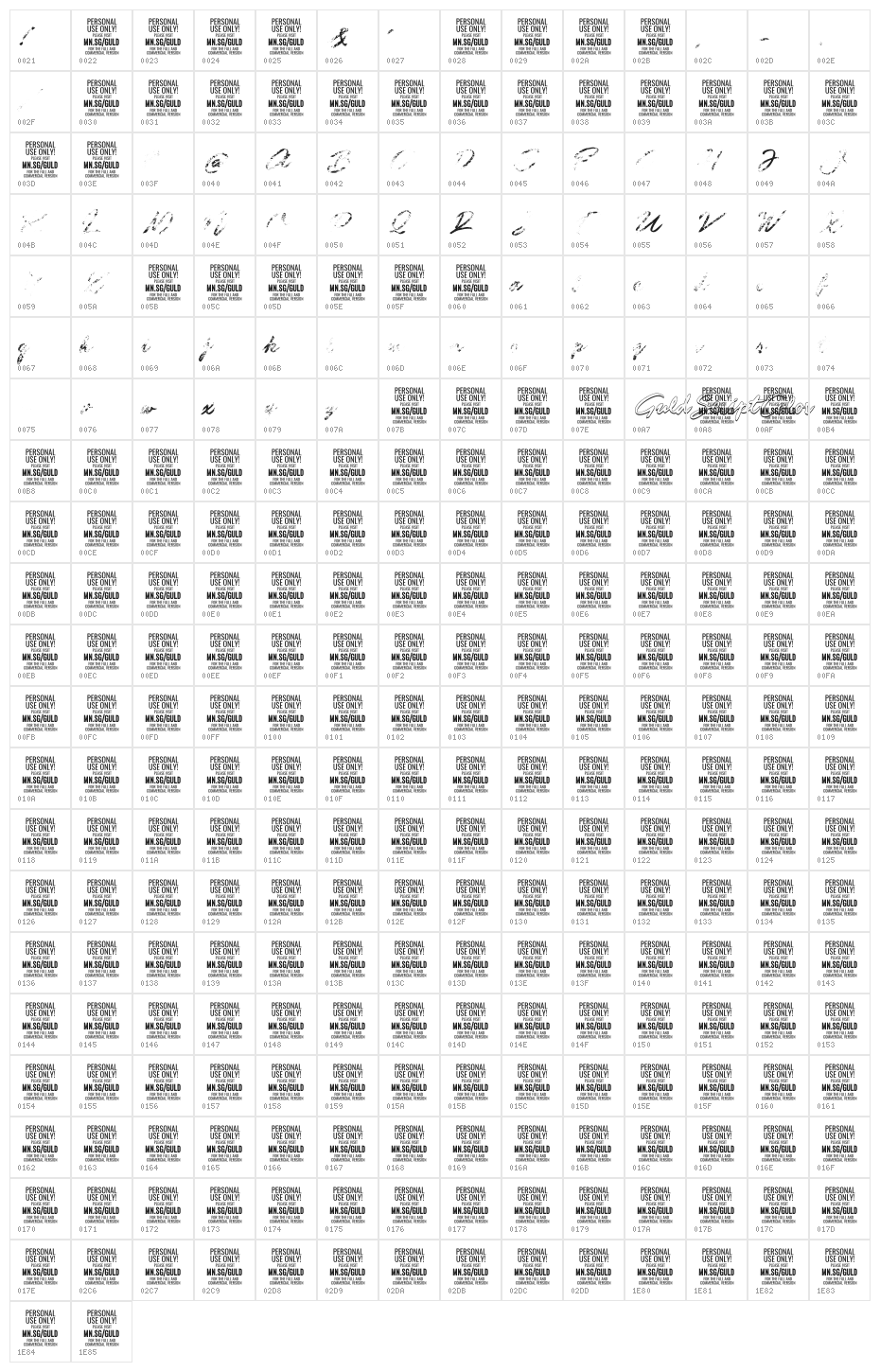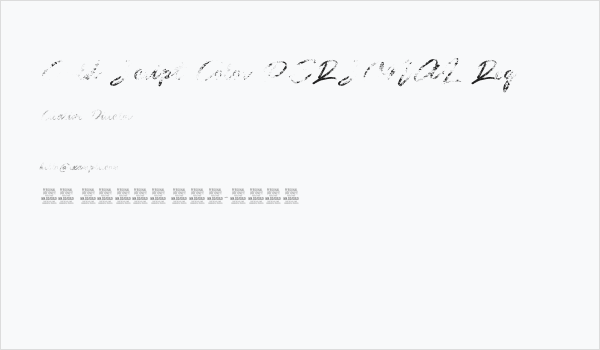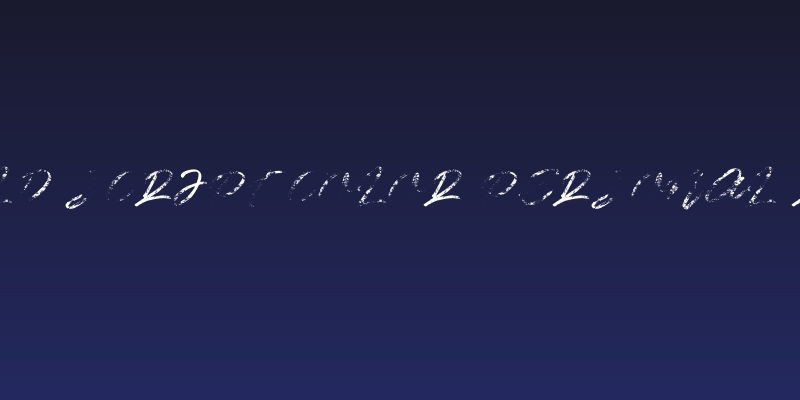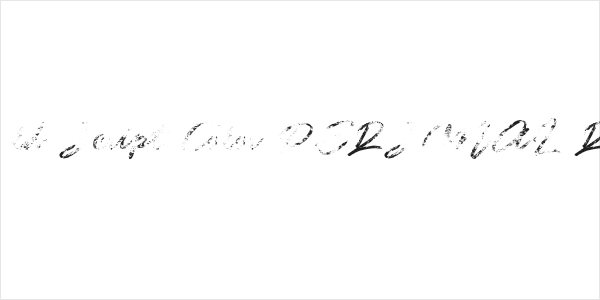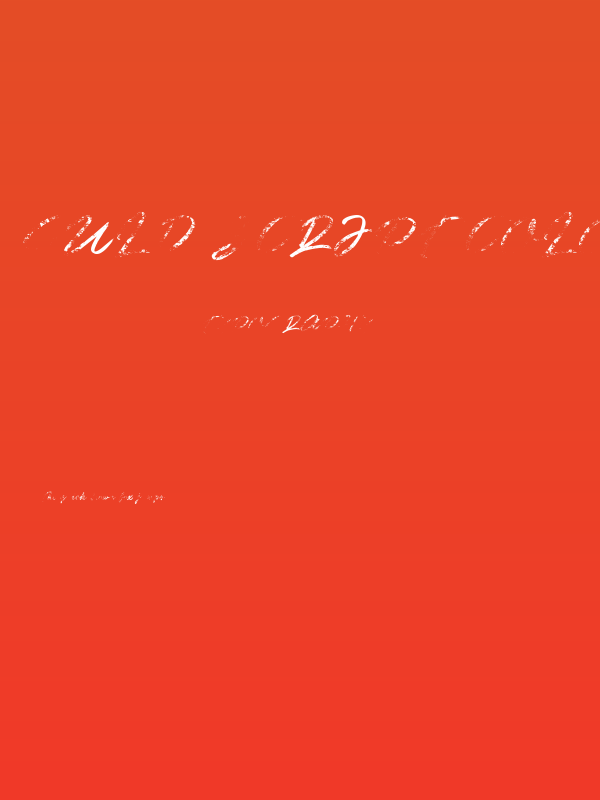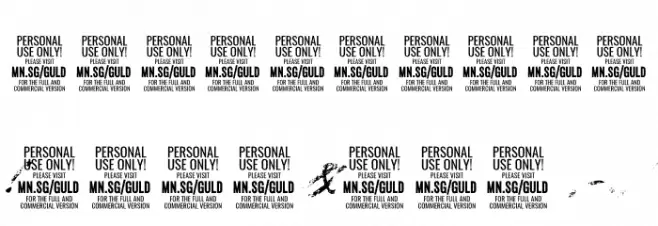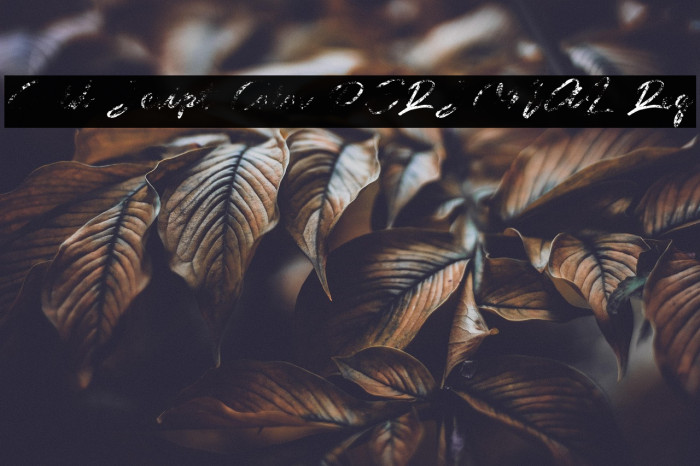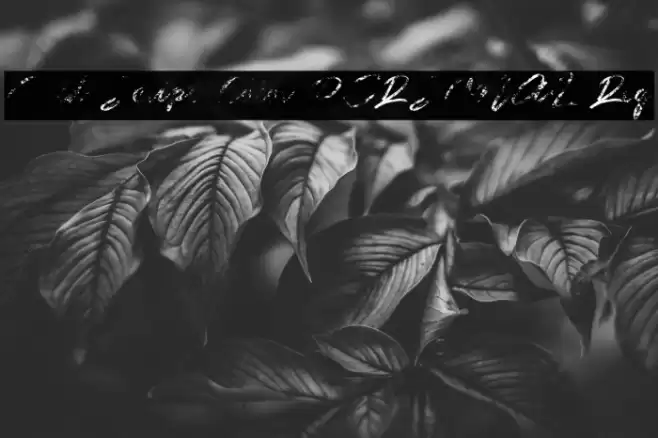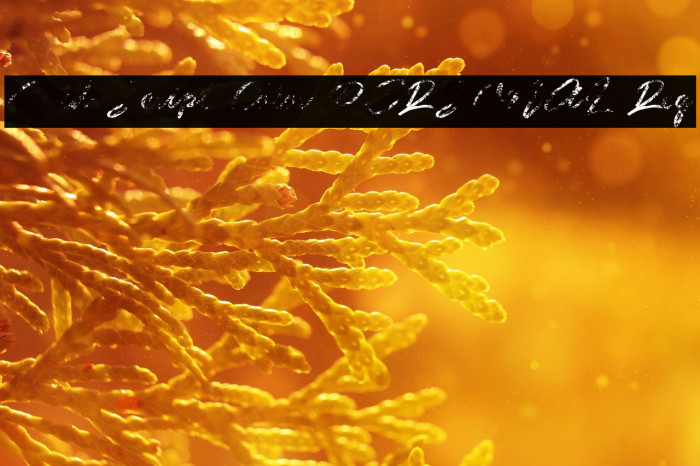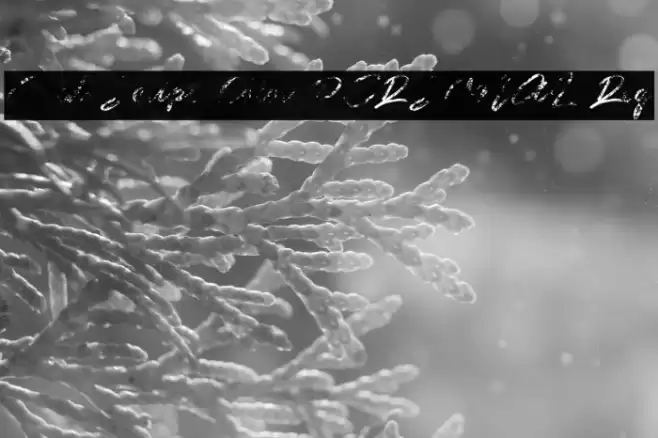
Guld Script Color PERSONAL Reg Font
Guld Script Color PERSONAL Reg Description
This font features a distressed, textured script style that gives it a handcrafted and artistic appearance. The letters are connected in a fluid, cursive manner, with varying stroke widths that create a dynamic and lively feel. The texture adds a vintage or grunge effect, making it suitable for designs that require a rustic or organic touch. The uppercase and lowercase letters are well-balanced, and the overall design maintains a consistent flow. The font's unique character is enhanced by its irregular edges and the impression of being hand-painted or inked.
| Overall Style | Vintage |
| Use Case | Logos, Invitations, Posters |
| Proposed Projects | Ideal for branding, invitations, posters, and any project requiring a rustic or artistic touch. |